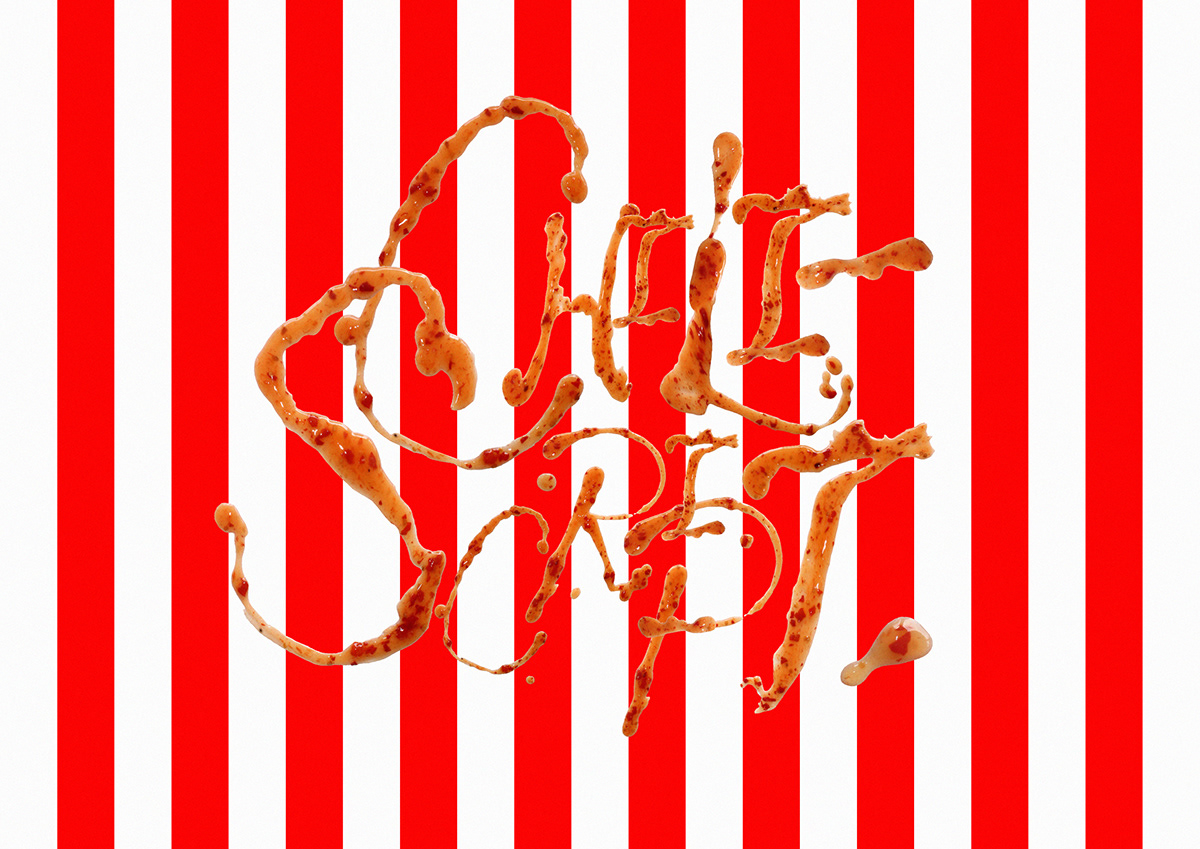
Presenting my latest typeface Ultra Hot. I made this font because I couldn't find exactly what I was looking for in the font marketplace, I wanted something spicy and wet. Ultra Hot is a sweet chilli font made from a medium heat chilli sauce blended with spicy red chillies & garlic and arranged by hand. Ultra Hot features no artificial colours, flavours or preservatives.